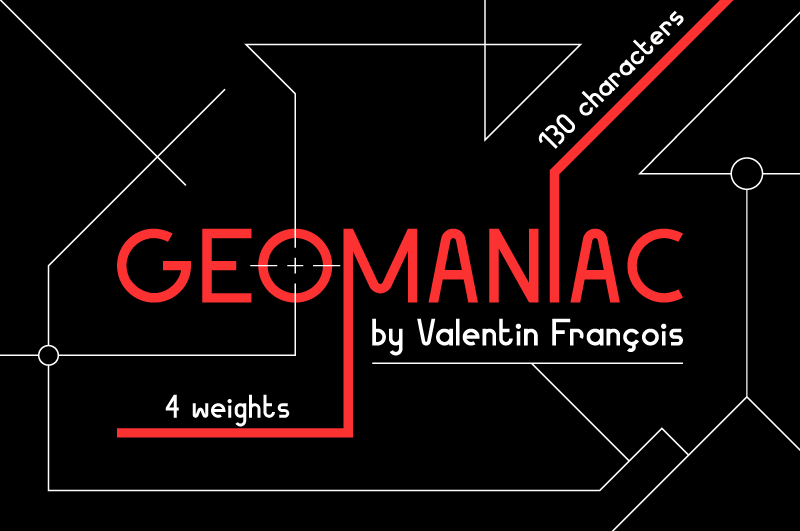
Geomaniac is a simple, geometric typeface, inspired by the Bauhaus movement in the 1920s. This is a free demo version : There are only caps and 2 weights, whereas the complete font includes 130 characters and 4 weights. You can purchase a commercial license of the complete font for just $1 on : https://thehungryjpeg.com/product/27035-geomaniac https://www.creativefabrica.com/product/geomaniac/ref/valentinfrancois You can also check my 100% free fonts : - Philippine (http://www.dafont.com/fr/philippine.font) - Simpleness (http://www.dafont.com/fr/simpleness.font) - Golden Ratio Demo (http://www.dafont.com/fr/golden-ratio.font) |